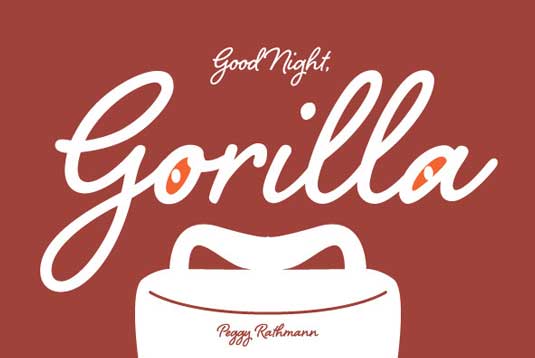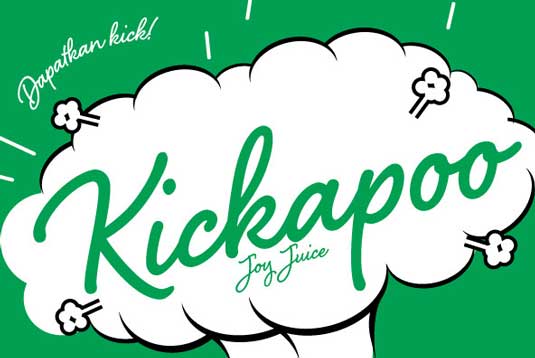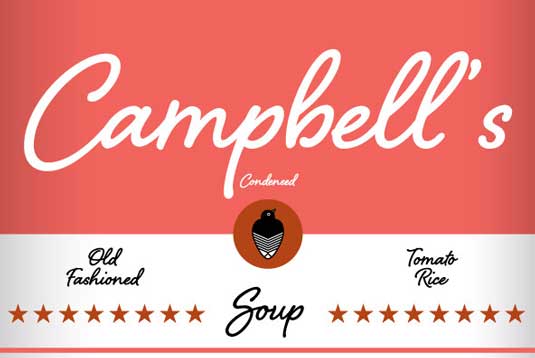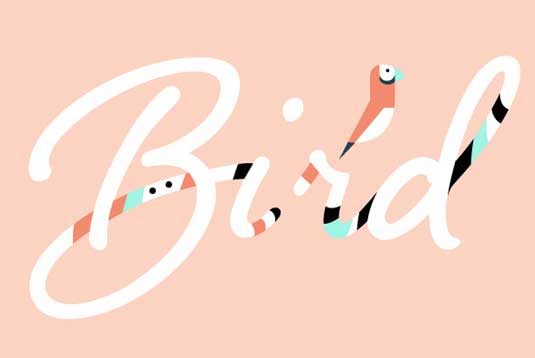
Font of the day: Shelby
Every day we showcase the best fonts on the web. Today it's Shelby by Laura Worthington.
Shelby by Laura Worthington.
Today's font of choice, Shelby, was created by graphic designer Laura Worthington. A monoline, semi-connected script typeface, Shelby is based on hand lettering created with a Speedball 'B' metal nib. It features several automatic ligatures, stylistic and contextual alternates, along with 20 ornaments that been designed to further its handwritten look.